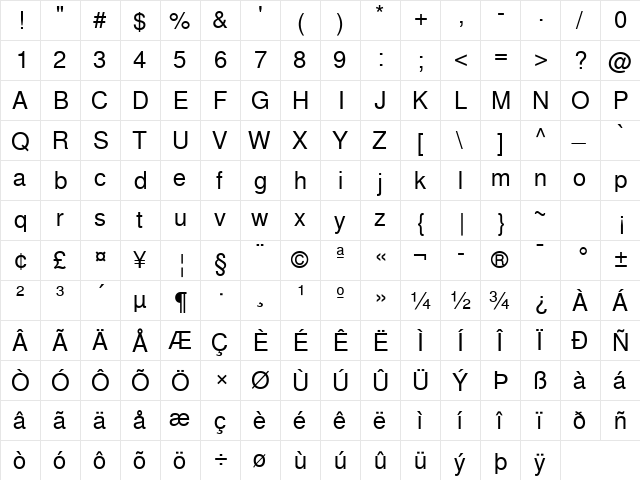
FreeSans Regular Font Preview
FreeSans Regular
FreeSans Regular Font Details
| Foundry | GNU |
Design Context for FreeSans Typeface
FreeSans offers clean, dependable letterforms without strong stylistic allegiance, making it a practical choice for designers who need flexibility.
Pro Tip: Pair FreeSans with a font of contrasting weight or personality to build a more expressive typographic hierarchy.